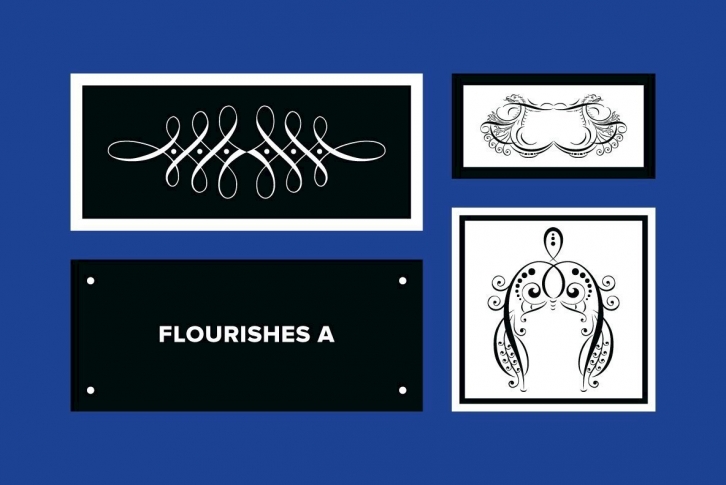
"Florishes A" are a set of flourishes, that serves well for frames and other elegant embellishments, they are beginning of last century American. Your I-found-them-somewhere type-designer Gert Wiescher